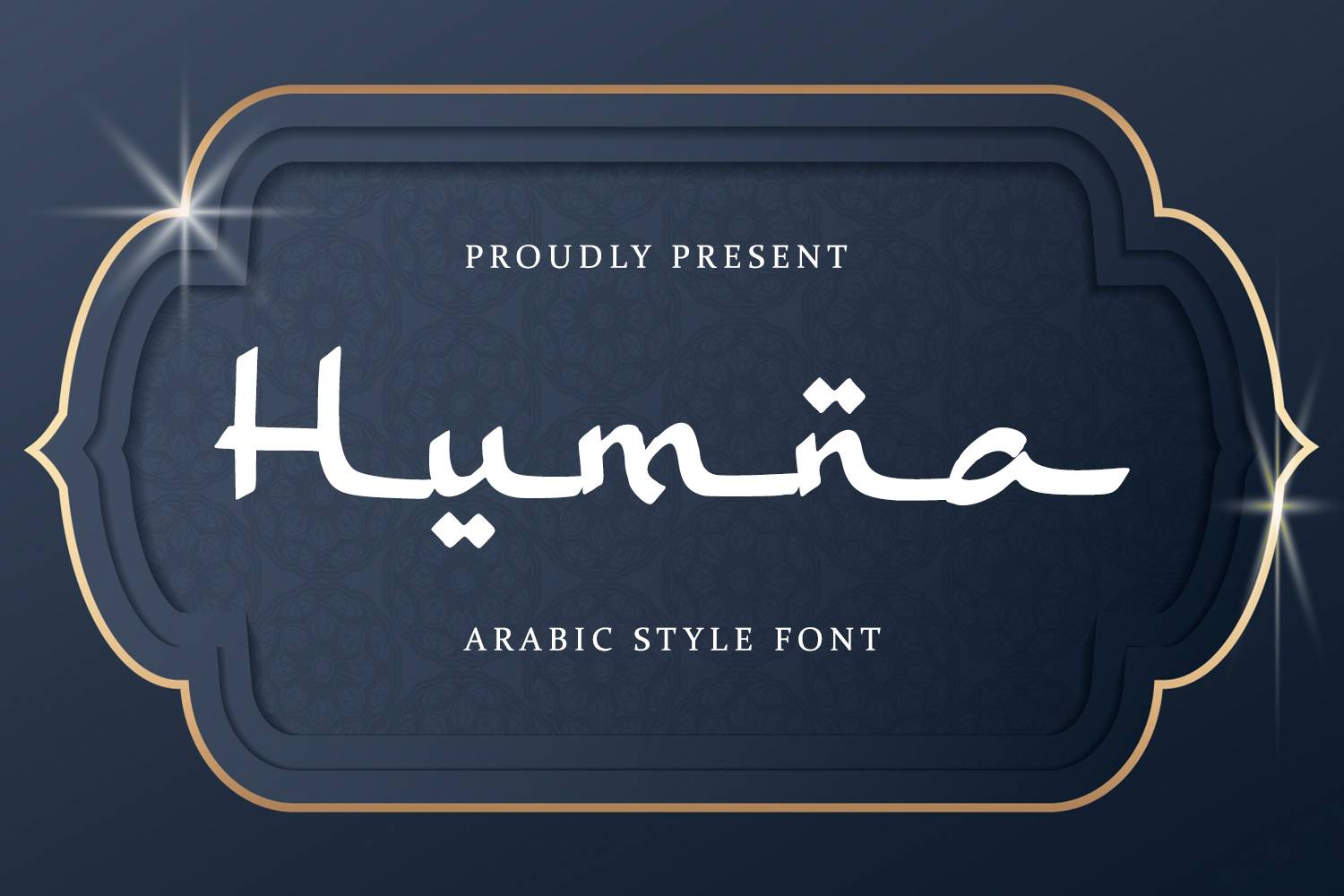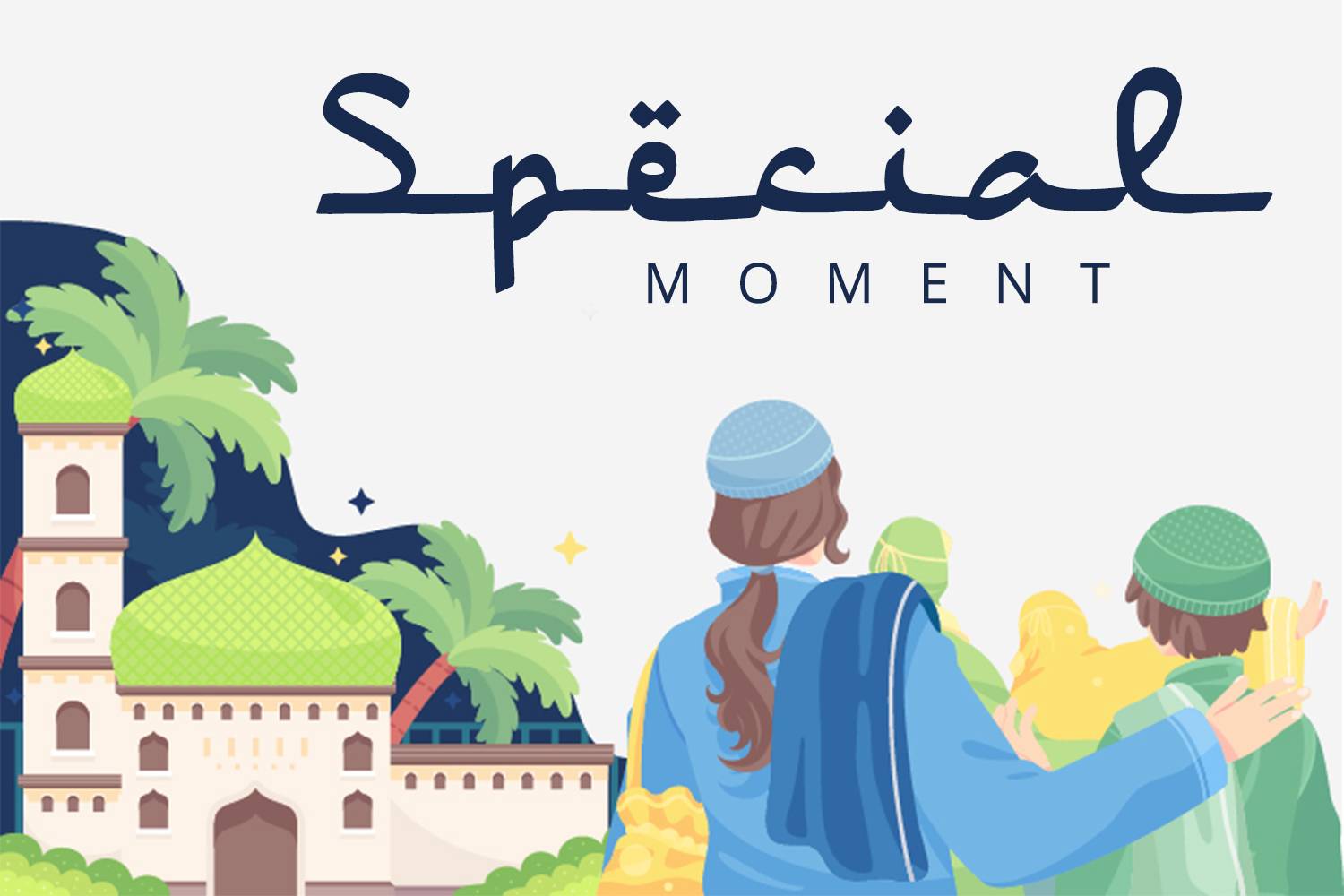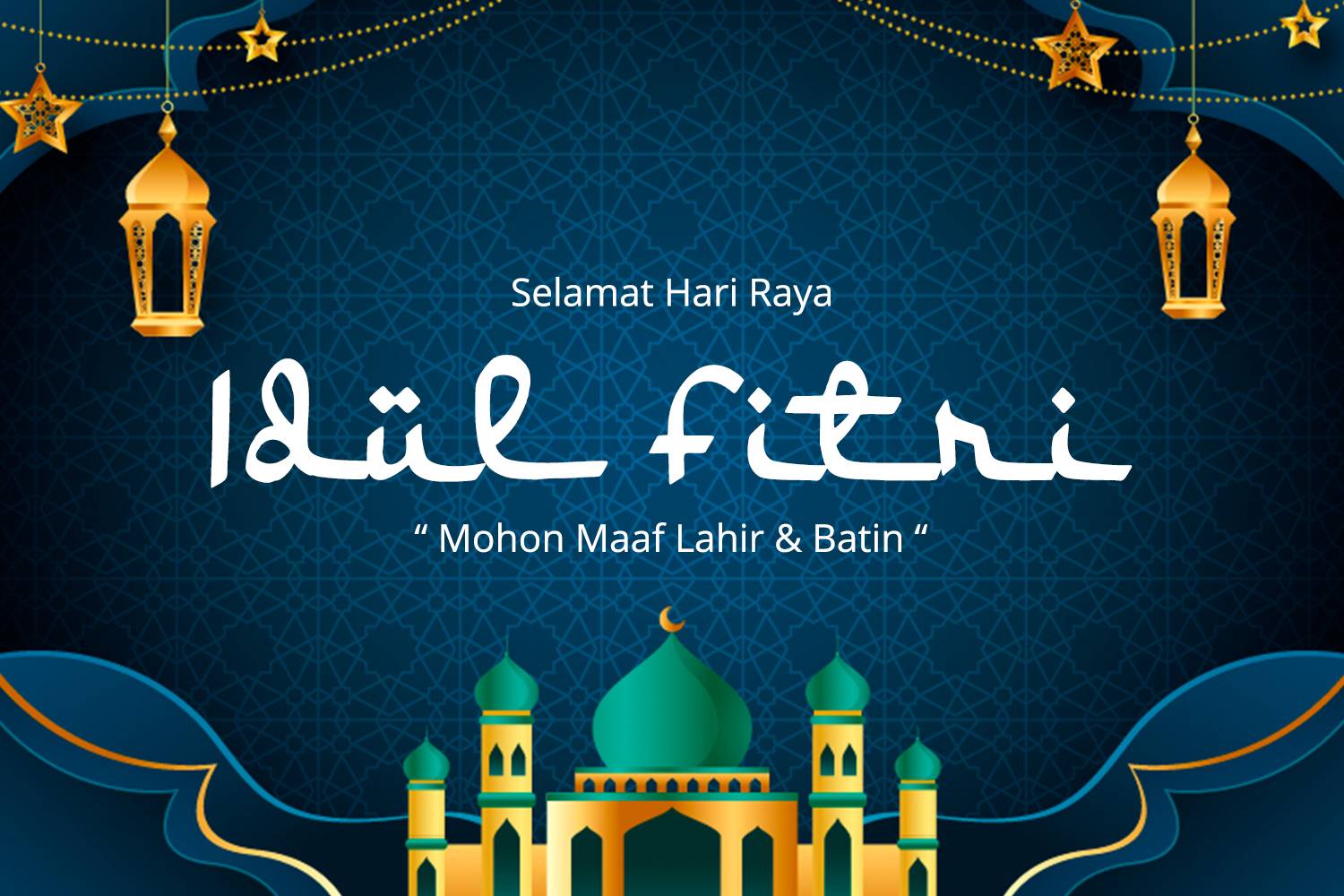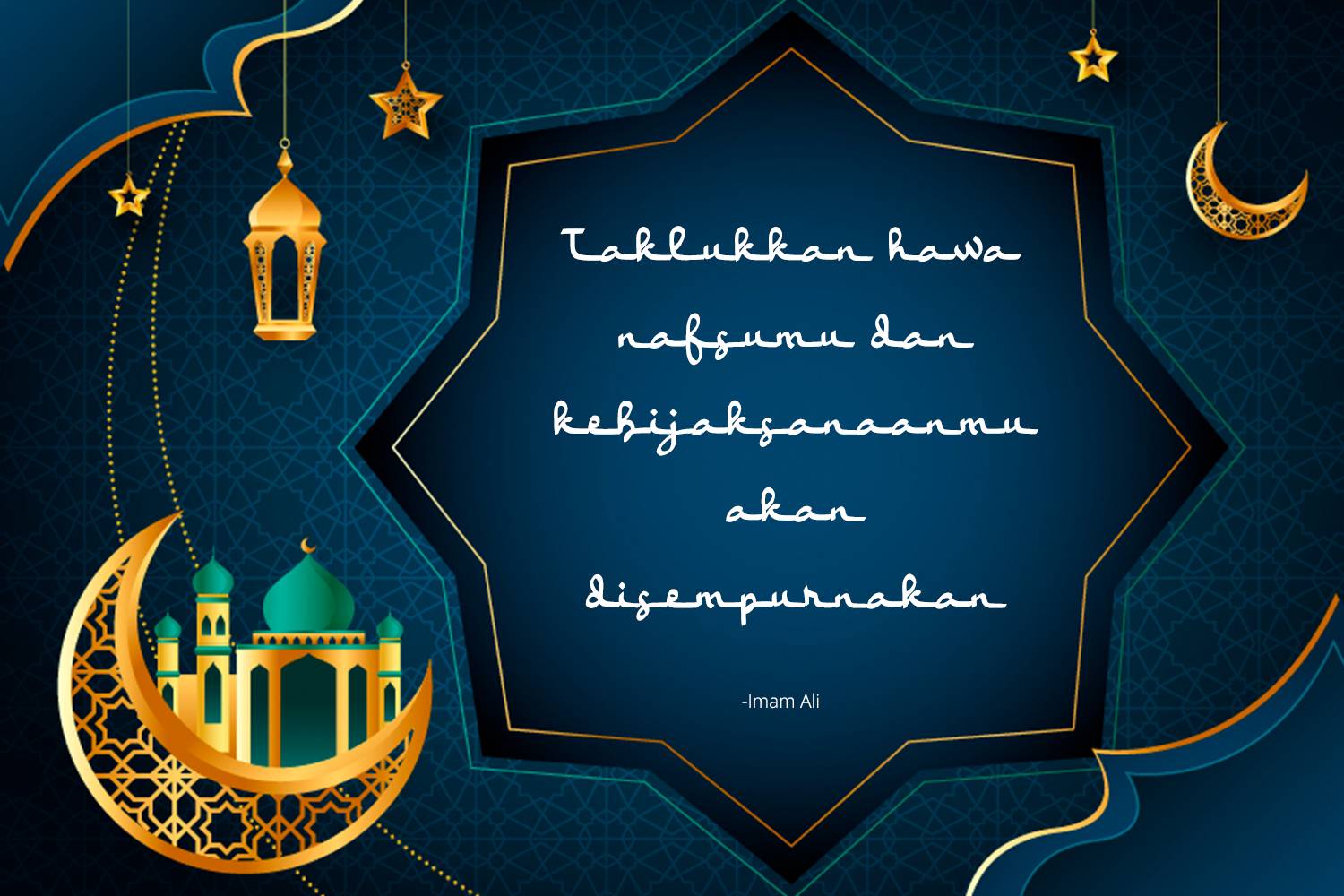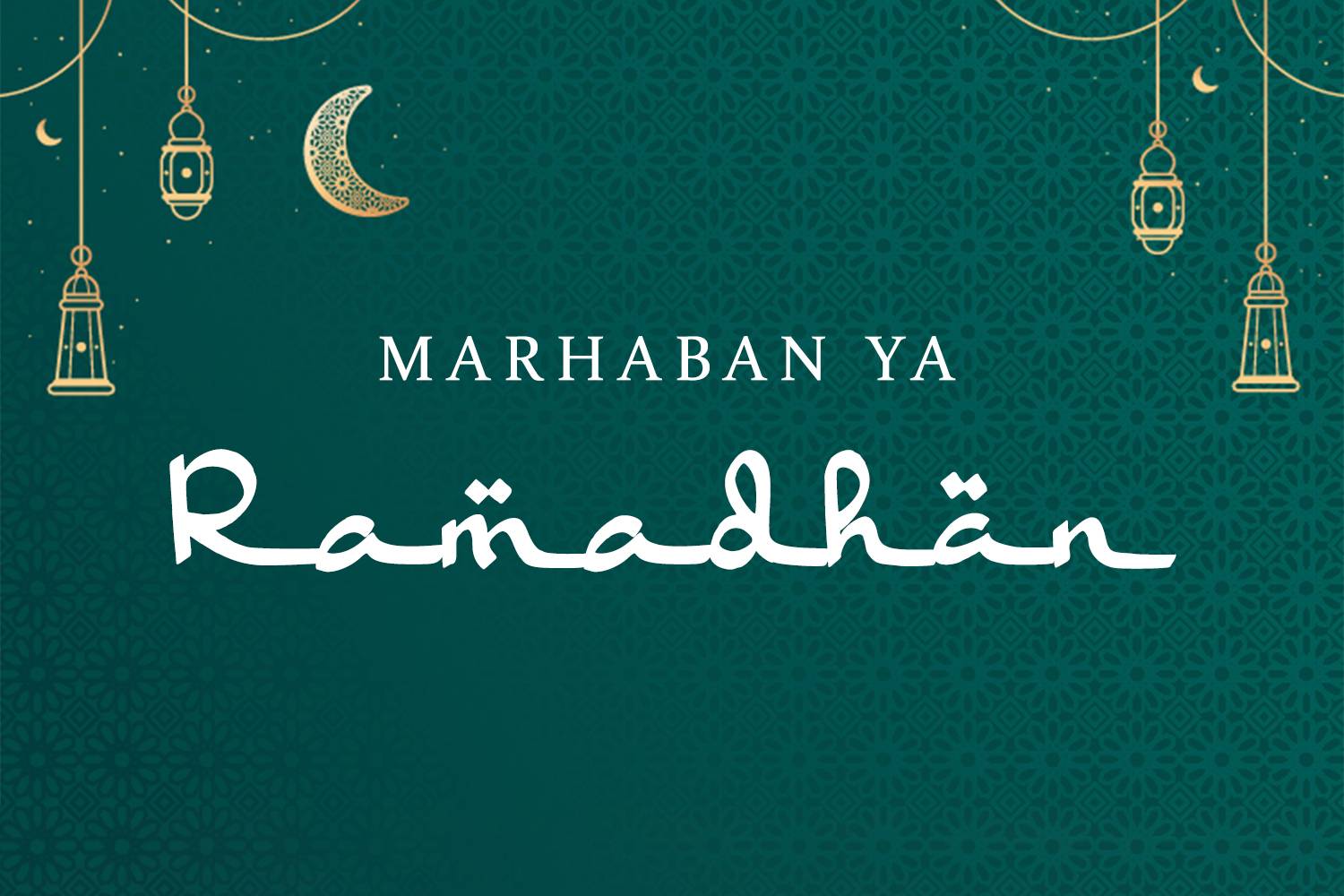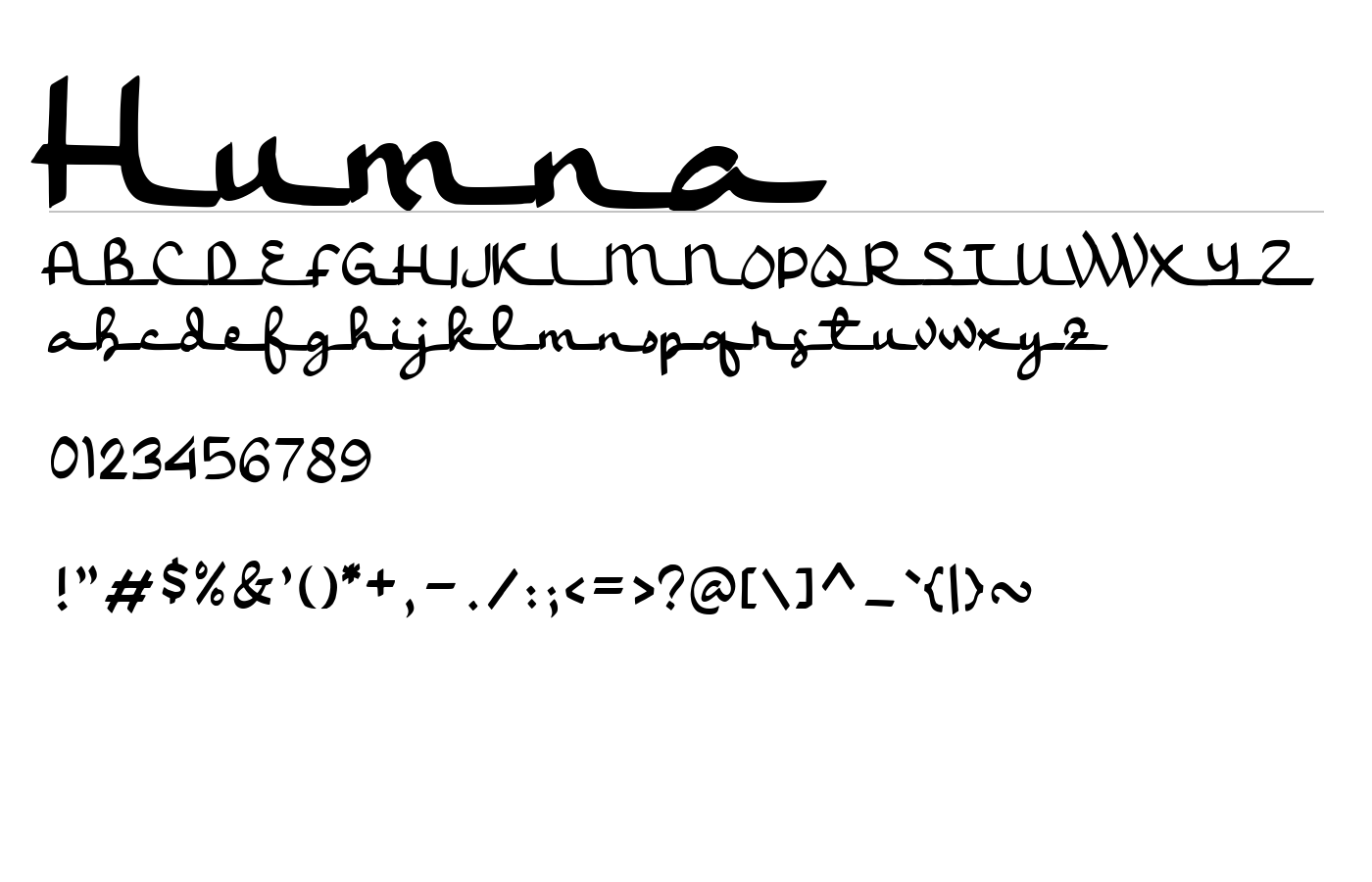
Humna is a playful and casual handwritten font with a light to regular weight and a distinctive, slightly uneven stroke that gives it a charming, personal touch. Its tall x-height and loosely connected letterforms create an airy and approachable feel, making it ideal for creative projects, informal headlines, and branding that seeks a friendly, human vibe. This font works well in invitations, children's books, and any design that benefits from an authentic, hand-drawn style.
Humna Font
About Humna Font